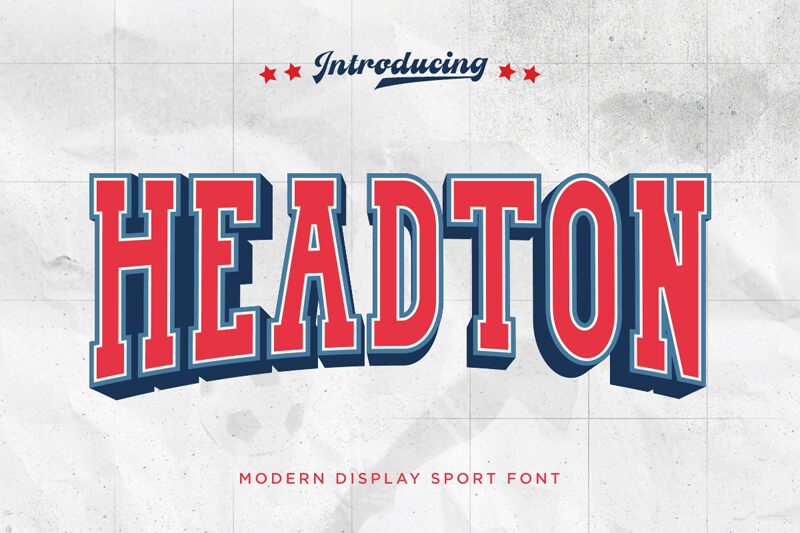
Headton
Headton font by Kong Font is a captivating display typeface with an old school charm. This slab serif style boasts a condensed width, offering a bold yet elegant appearance that demands attention. Its robust and classic design makes it perfect for headlines, posters, and branding projects seeking a vintage touch.
The Headton font elevates any design with its distinctive character, merging traditional aesthetics with modern versatility. Ideal for both digital and print projects, this eye-catching font is available as a free font download.
Whether you’re designing for retro-themed events or looking to create standout marketing materials, Headton delivers impact and style. Embrace its unique appeal to enhance your creative solutions effortlessly.